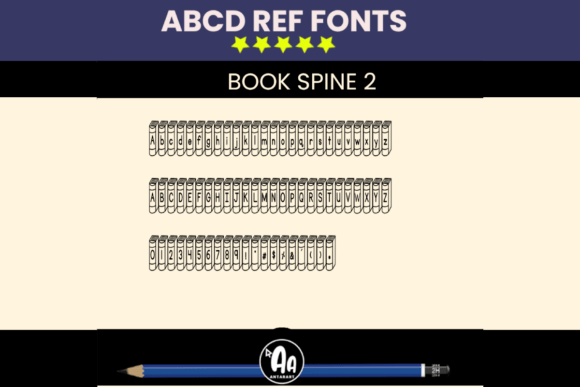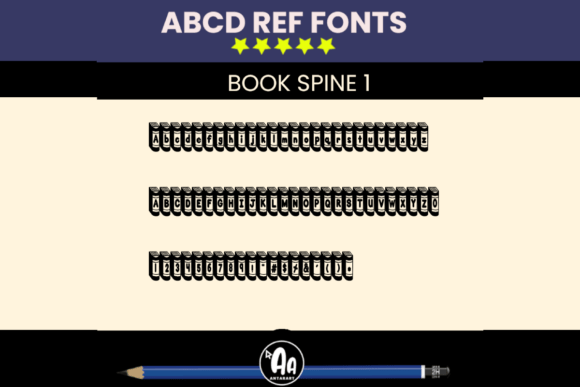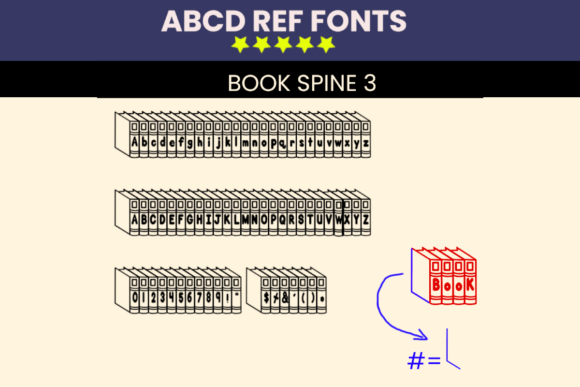
Abcd Ref Book Spine1 Font: Elevate Your Classroom or Library with Unique Book Spine Letters
Are you a teacher, librarian, or educator looking to add a touch of creativity and organization to your classroom or library? Look no further than the Abcd Ref Book Spine1 Font, a versatile and visually appealing Book Spine Letters Font Set. This comprehensive font set features three distinct styles, each designed to resemble a book standing upright on a shelf. With its wide range of applications, this font is perfect for creating engaging and informative displays that cater to various grade levels, subjects, and themes.
What is the Book Spine Letters Font?
The Book Spine Letters Font is a decorative font designed to mimic the look of books on a shelf. Each letter and number is carefully crafted to resemble a book spine, complete with a title and author label. This unique design makes it an excellent choice for creating printable bulletin board titles, library section labels, classroom door displays, and binder covers.
Key Features of the Book Spine Letters Font
- Three Different Styles: The font set includes three distinct styles to suit your design preferences.
- Uppercase Letters, Numbers, and Symbols: The set includes a comprehensive range of characters, ensuring you have everything you need to create custom displays.
- Printable and Editable: The designs are easily printable and editable, allowing you to tailor them to your classroom theme and reuse them year after year.
- Versatile: The font is suitable for various grade levels, subjects, and themes, making it an excellent addition to any classroom or library.
Creative Ways to Use the Book Spine Letters Font
The possibilities are endless with the Book Spine Letters Font. Here are some creative ways to incorporate it into your classroom or library:
- Custom Headings: Create eye-catching headings for your classroom displays, bulletin boards, or library sections.
- Subject Labels: Use the font to create labels for different subjects, such as Math, Science, Reading, and more.
- Motivational Quotes: Design inspiring quotes and display them prominently in your classroom or library.
- Library Section Labels: Organize your library shelves with custom labels that resemble book spines.
- Binder Covers: Create professional-looking binder covers that match your classroom theme.
As a designer or crafter, you’ll appreciate the flexibility and creative freedom offered by the Book Spine Letters Font. Here are some benefits to consider:
- Customizable: The editable designs allow you to tailor the font to your specific needs and preferences.
- Time-Saving: The comprehensive font set saves you time and effort, as you can create professional-looking displays quickly and easily.
- Inspires Creativity: The unique design of the font inspires creativity and imagination, helping you to create engaging and informative displays.
The Abcd Ref Book Spine1 Font is an excellent addition to any classroom or library. With its unique design, versatility, and ease of use, it’s perfect for creating engaging and informative displays that cater to various grade levels, subjects, and themes. Whether you’re a teacher, librarian, or educator, this font set is sure to inspire creativity and organization in your learning environment.